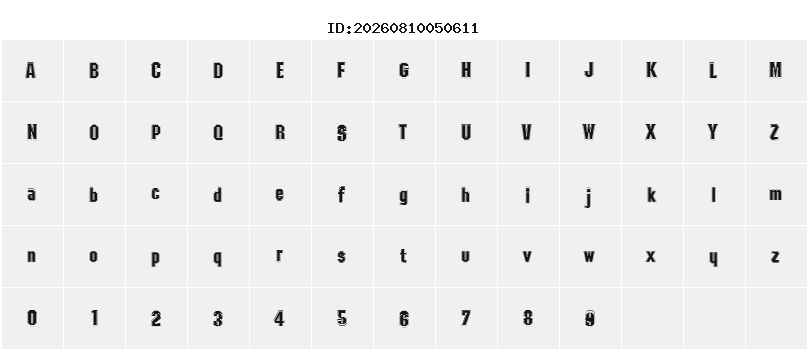
PSL SamsonStar Preview
• Font Name: PSL SamsonStar
• Full Font Name: PSL SamsonStar Regular
About PSL SamsonStar.ttf
PSL SamsonStar.ttf is a modern, elegant sans-serif font designed for ultimate readability and visual harmony. Perfect for branding, headlines, web design, and print materials.